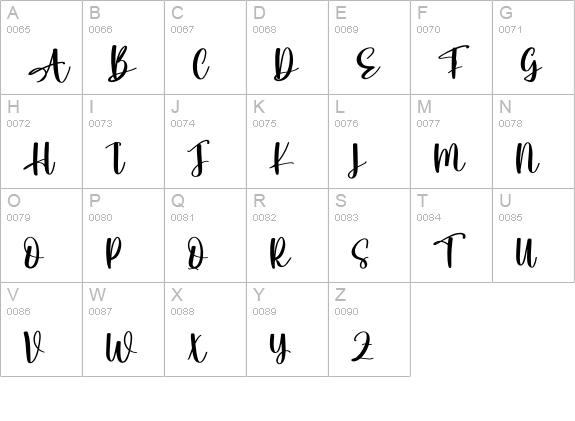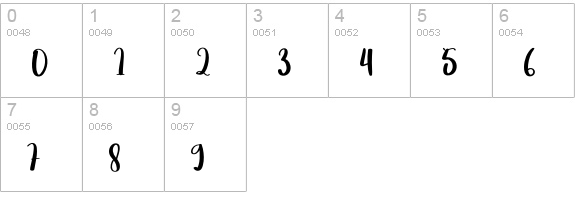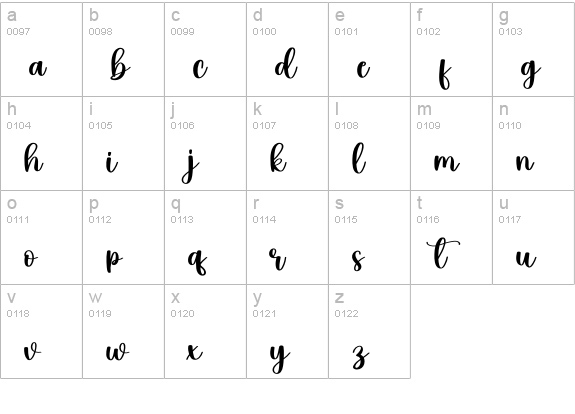
Macaroni Font Details
Macaroni is a free for personal use font in the Script > Old School category, designed by scratchones. It has been downloaded 15 times and is available for Windows, Mac and Linux.
The Macaroni font is a fun and whimsical typeface that will add a touch of playfulness to your design projects. With its unique and quirky style, Macaroni is perfect for creating eye-catching headlines, invitations, and more. This delightful font features charming curves and a hand-drawn feel that will bring a sense of joy to any project.